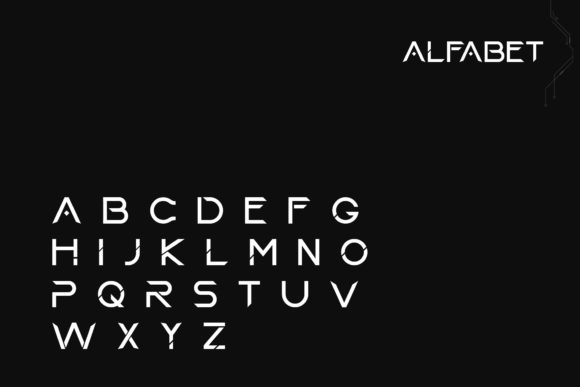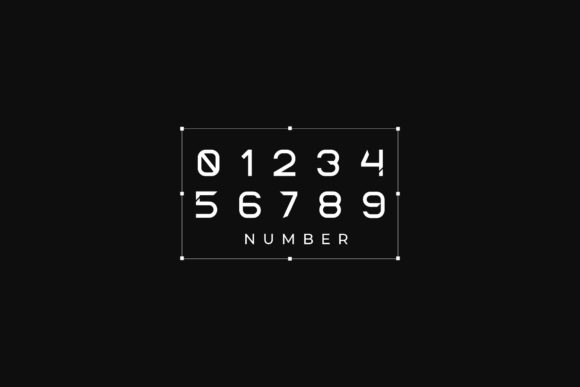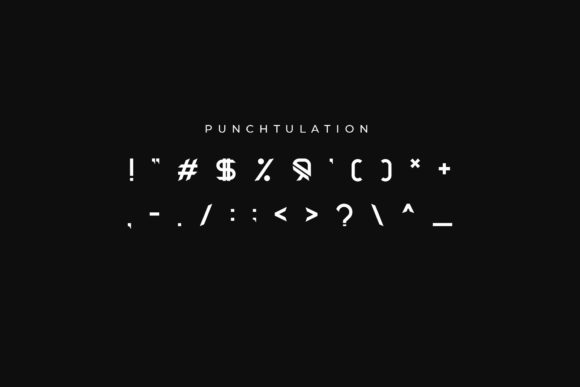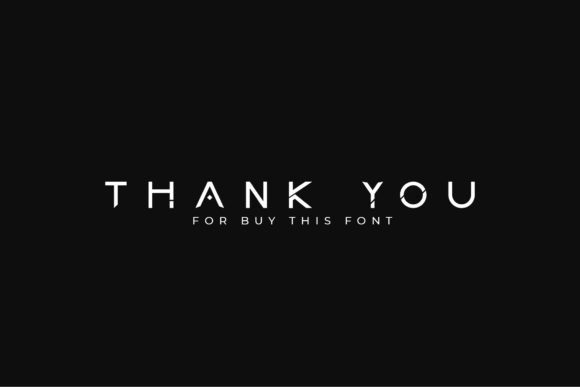
Aboro Font: Elevate Your Designs with a Futuristic Twist
In the realm of typography, fonts play a pivotal role in shaping the visual identity of a design. Among the myriad of fonts available, Aboro stands out as a futuristic design and space display font that is making waves in the design community. This article delves into the features, benefits, and potential applications of the Aboro font, exploring how it can elevate your designs, particularly those with a sci-fi, cyberpunk, or robotic theme.
Introduction to Aboro Font
Aboro is not just another font; it’s a statement piece. Designed with the future in mind, this typeface embodies a clean, modern, and versatile aesthetic that is perfect for displays, branding, or headlines. Its futuristic appeal makes it an ideal choice for projects that require a touch of innovation and forward-thinking. Whether you’re working on a sci-fi movie poster, a cyberpunk video game, or a robotic-themed advertisement, Aboro is poised to give your creations a distinctive edge.
Key Features of Aboro Font
- Clean and Modern Design: Aboro boasts a sleek and uncluttered design that ensures your message is conveyed with clarity and precision. Its clean lines and modern aesthetic make it perfect for digital displays and print media.
- Versatility: One of the standout features of Aboro is its versatility. It can be used across a wide range of applications, from billboards and movie posters to digital interfaces and product packaging.
- Timeless Appeal: Despite being inspired by futuristic themes, Aboro has a timeless quality to it. This ensures that your designs remain relevant and impactful for years to come.
- Sci-Fi, Cyberpunk, and Robotic Themes: Aboro’s design is deeply rooted in sci-fi, cyberpunk, and robotic aesthetics, making it a perfect fit for projects that require a futuristic vibe.
Benefits of Using Aboro Font
The benefits of incorporating Aboro into your design projects are multifaceted:
- Enhanced Visual Appeal: Aboro’s unique and futuristic design instantly captures attention, enhancing the visual appeal of your projects.
- Brand Differentiation: In a crowded market, Aboro can help your brand stand out by providing a distinctive visual identity.
- Flexibility: Its versatility means you can use Aboro across various mediums, from digital platforms to print.
- Easy to Read: Despite its futuristic design, Aboro maintains readability, ensuring your message is communicated effectively.
Potential Applications of Aboro Font
Aboro’s wide range of applications makes it a valuable addition to any designer’s toolkit. Some potential uses include:
- Movie and Video Game Posters: Add a futuristic touch to your movie or video game posters with Aboro.
- Branding and Logo Design: Create a lasting impression with a logo or brand identity that incorporates Aboro.
- Digital Interfaces: Enhance the user experience of digital products with Aboro’s modern and clean aesthetic.
- Advertising: Make your advertisements stand out with a font that demands attention.